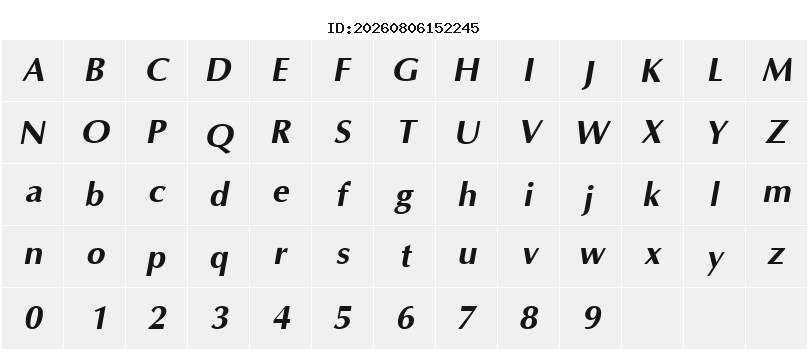
• Font Name: Omni
• Full Font Name: Omni Bold Italic
About Omni.ttf
Omni.ttf is a modern, elegant sans-serif font designed for ultimate readability and visual harmony. Perfect for branding, headlines, web design, and print materials.